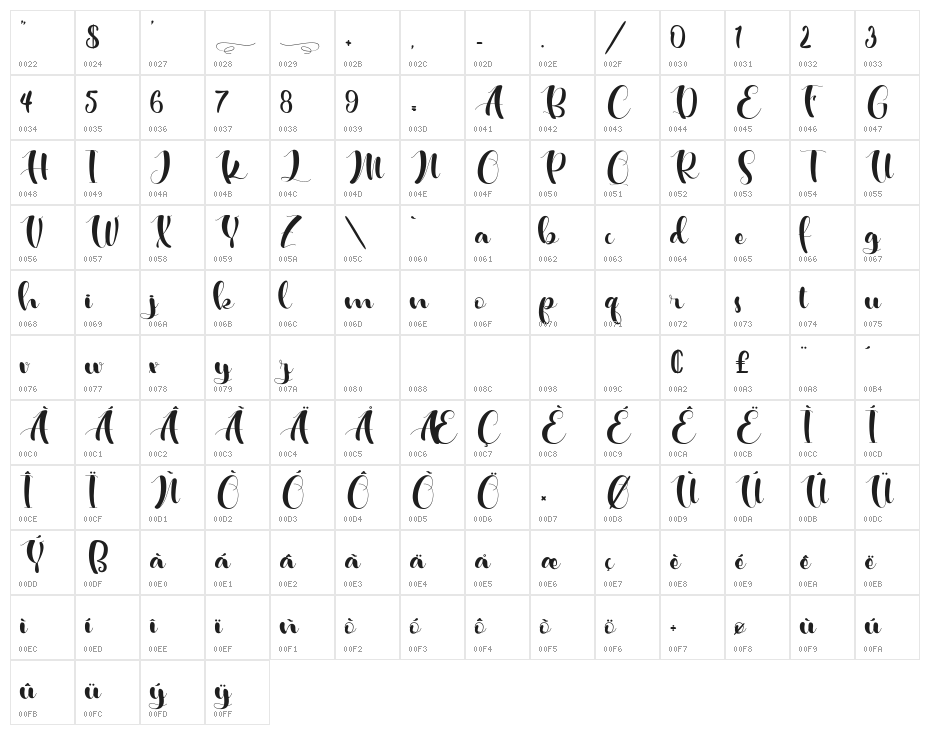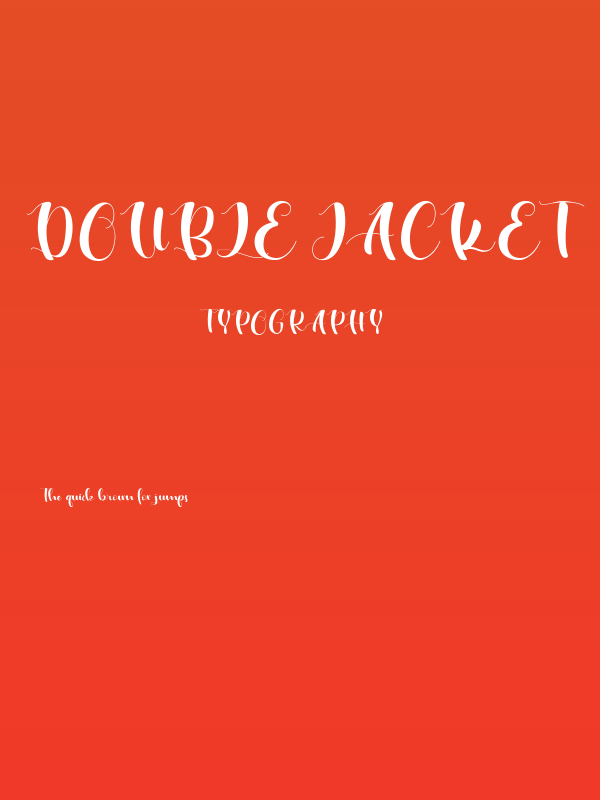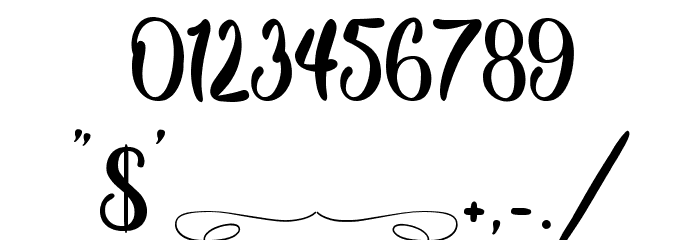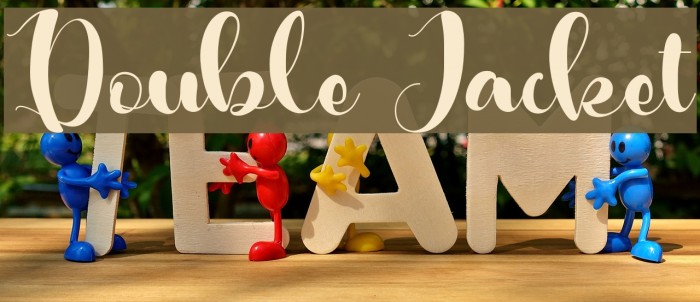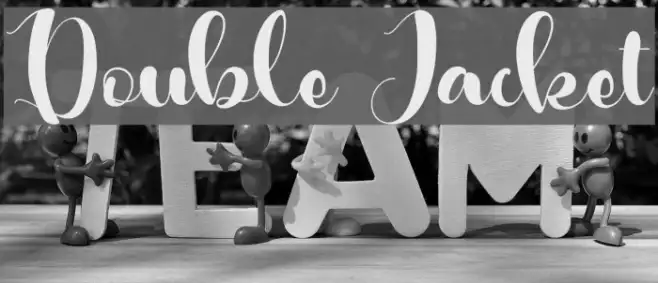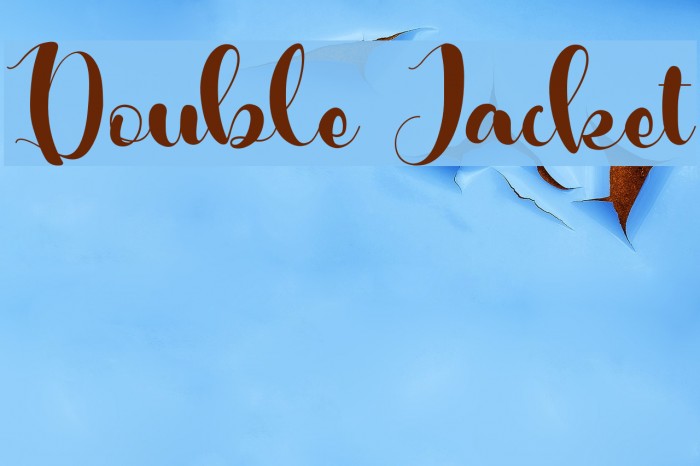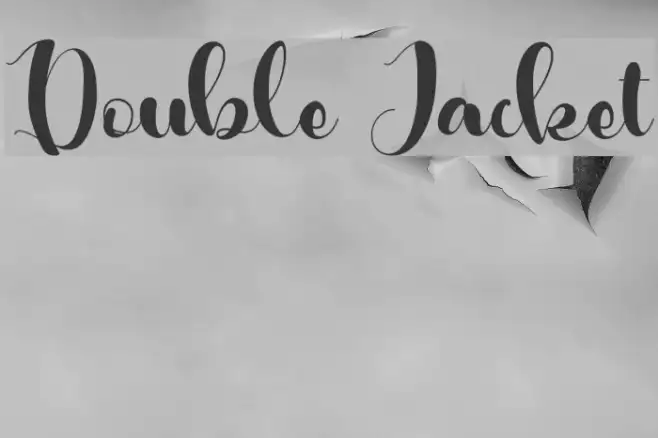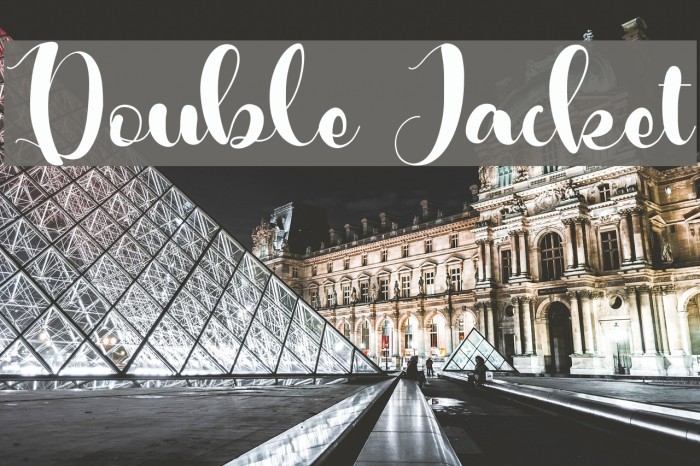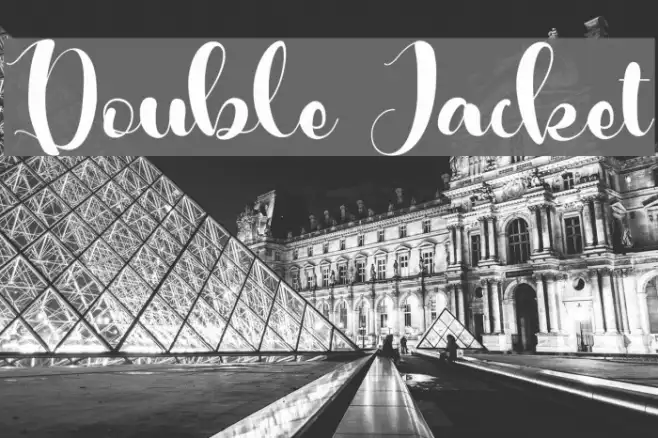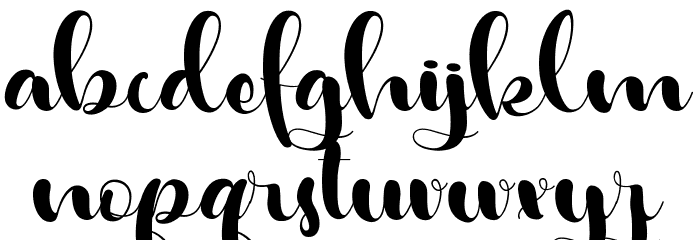
Double Jacket Font
Double Jacket Description
This font features an elegant and flowing script style, characterized by its ornate and decorative letterforms. The uppercase letters exhibit a sophisticated flair with extended swashes and loops, while the lowercase letters maintain a consistent cursive flow. The numbers are designed to match the overall aesthetic, with a touch of whimsy in their curves. Special characters are thoughtfully integrated, enhancing the font's versatility. The overall appearance is both classic and modern, making it suitable for a variety of creative applications.
| Use Case | Logos, Invitations, Decorative Text |
| Proposed Projects | Ideal for wedding invitations, greeting cards, branding projects, and elegant packaging designs. |